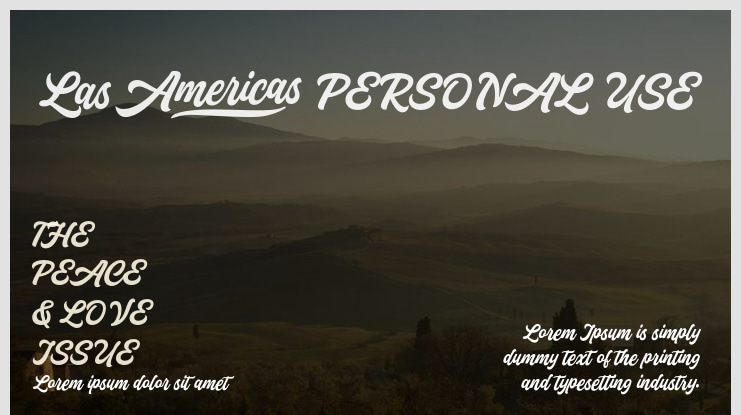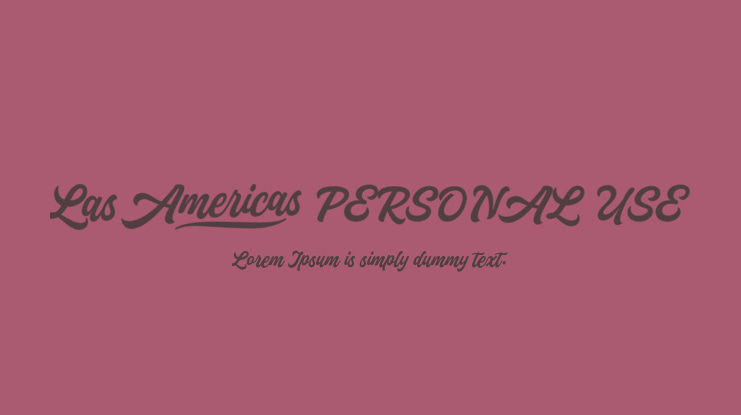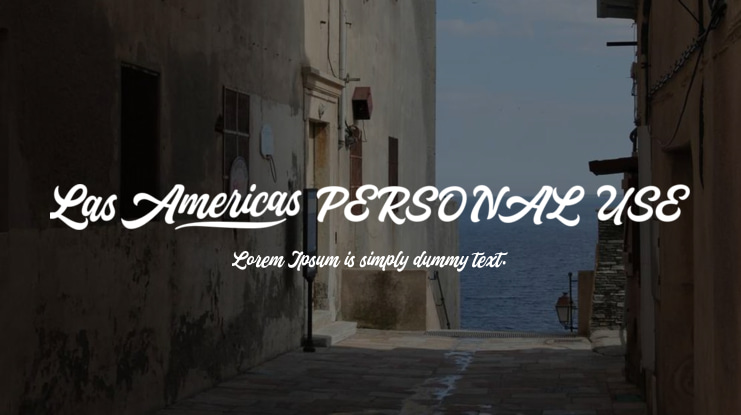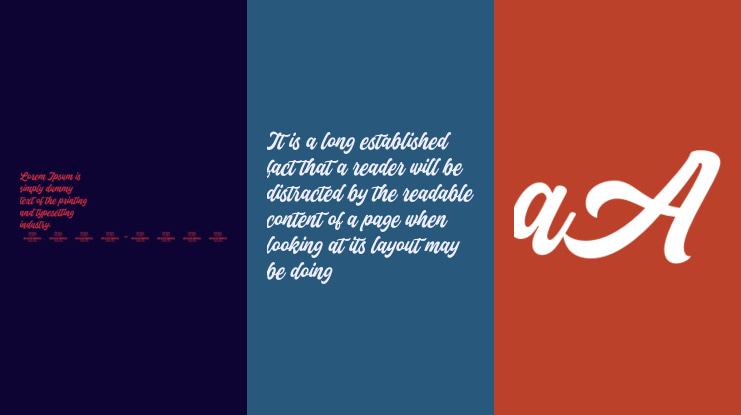
Las Americas PERSONAL USE Font
Las Americas is a dynamic script font that exudes energy and flair. Its robust, bold lines project authority.
To add embellishments to your text, use one or more underscores (_) within the word to create a stylish swash. For instance: Amer_icana, Oce___anic.